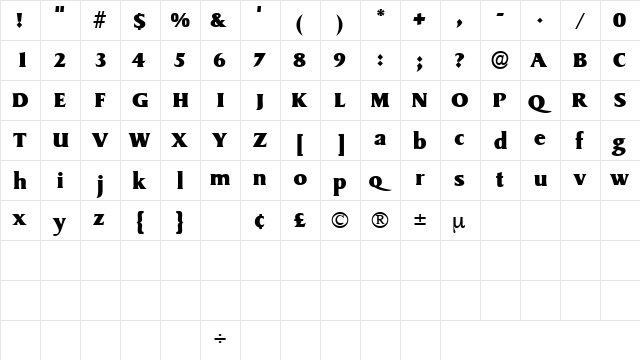
BrusquerieDisplaySSK Regular
Design Context for BrusquerieDisplaySSK Typeface
BrusquerieDisplaySSK is built around its visual character rather than neutral utility — its distinctive forms are designed to make an impression at display sizes.
Font Pairing: Pair with a clean neutral sans-serif for body copy to let BrusquerieDisplaySSK's character lead without overwhelming the composition.
Pro Tip: Treat BrusquerieDisplaySSK as the centrepiece of your typographic hierarchy. One strong heading set in a decorative face can carry an entire layout.